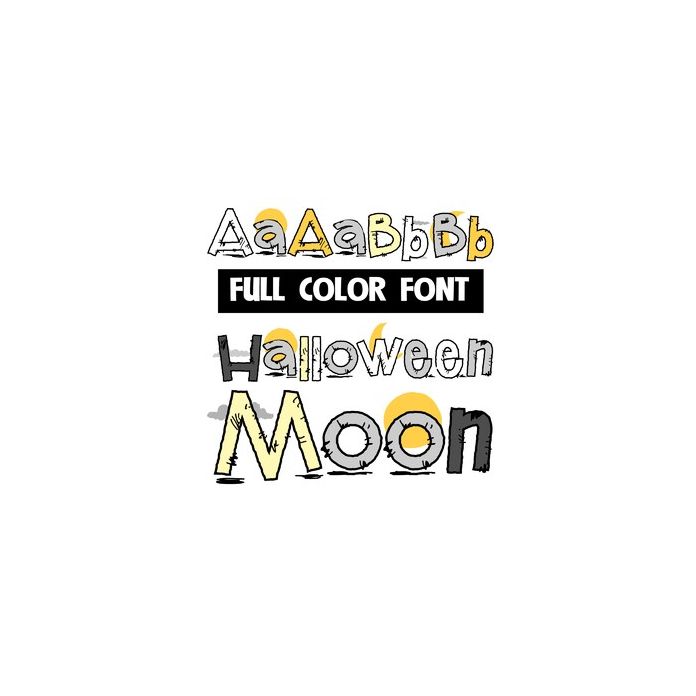
This full-color font features outlined scary lettering, shadows, moons, and clouds. There is a secondary alt case for both upper and lower that you can access through your system or Silhouette's glyph map.